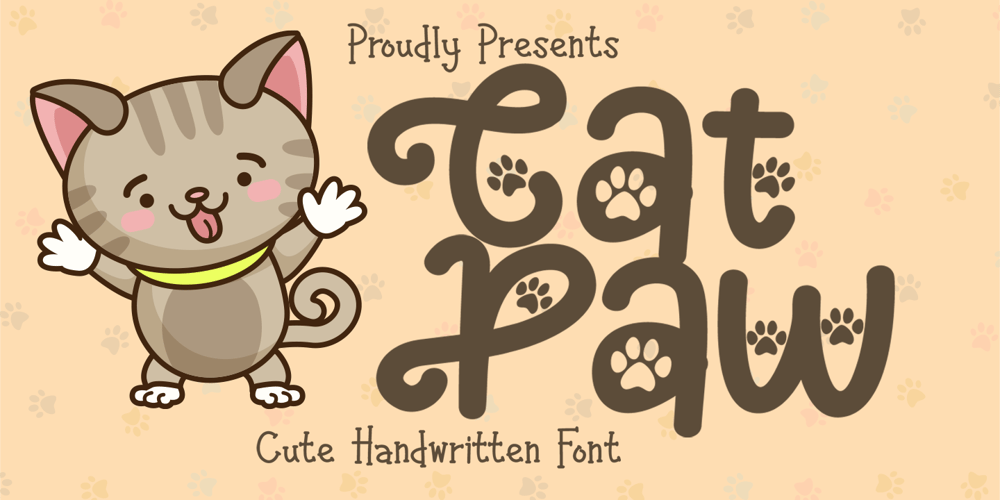
Cat Paw Font Family was designed by Dian Haniffan Hadi and published by Beary. Cat Paw contains 1 styles and family package options. Cat Paw embodies fun, quirkiness and authenticity. It features gorgeous and fun characters that will brighten up your crafting projects. It will elevate a wide range of design projects to the highest level, be it branding, headings, invitations, signatures, logos, labels, and much more!